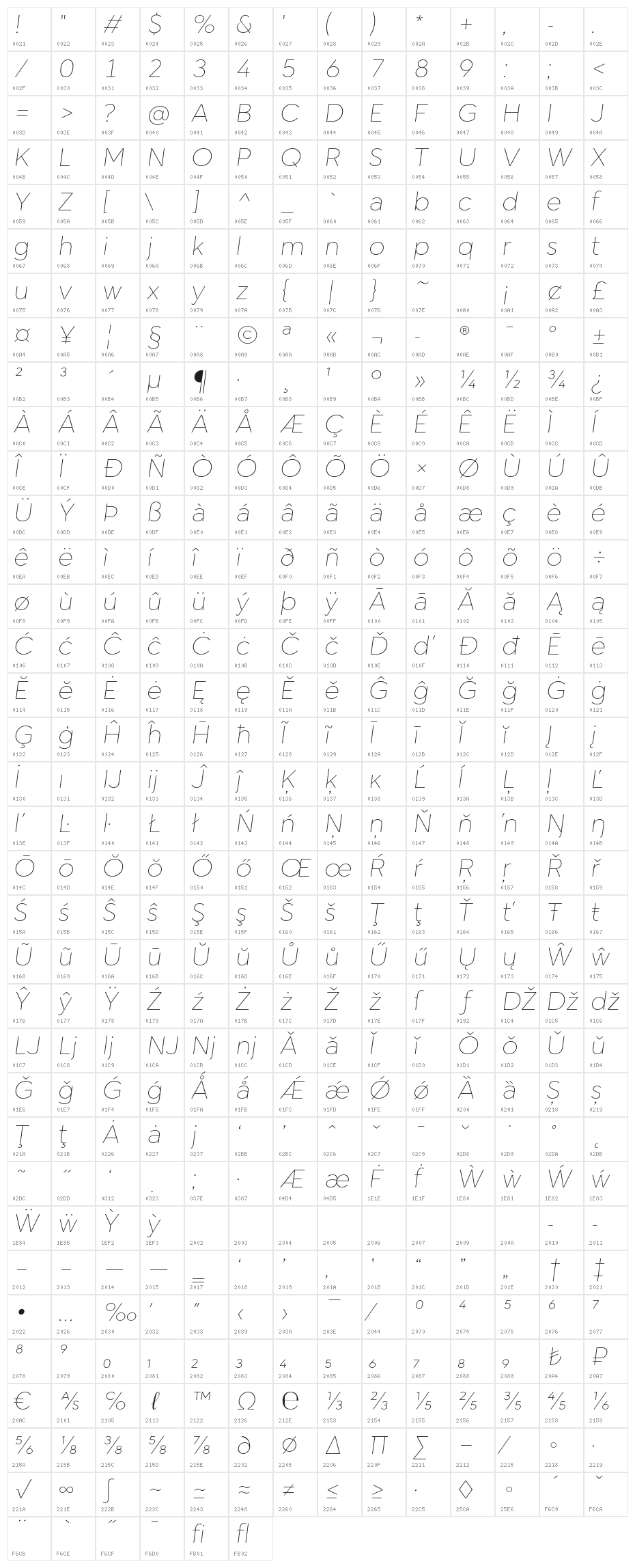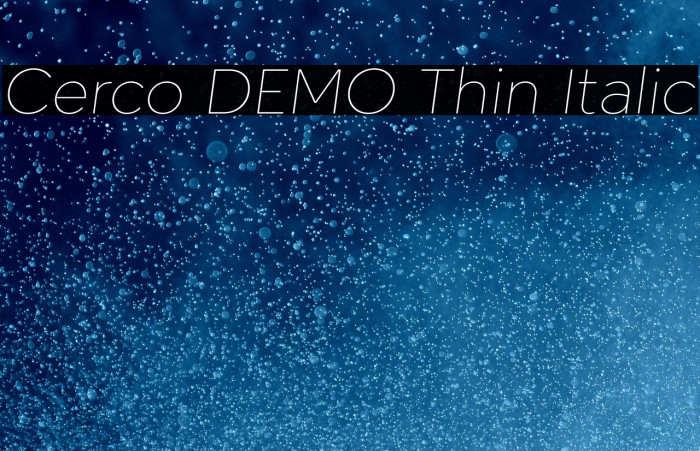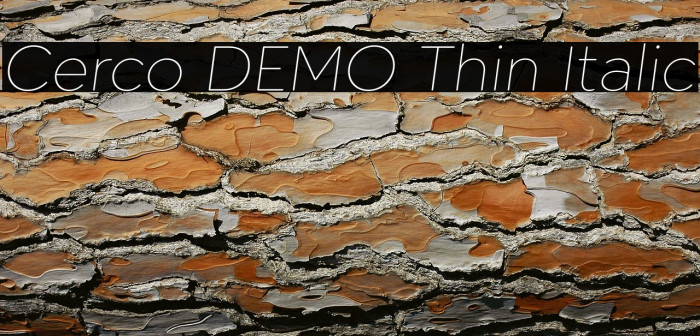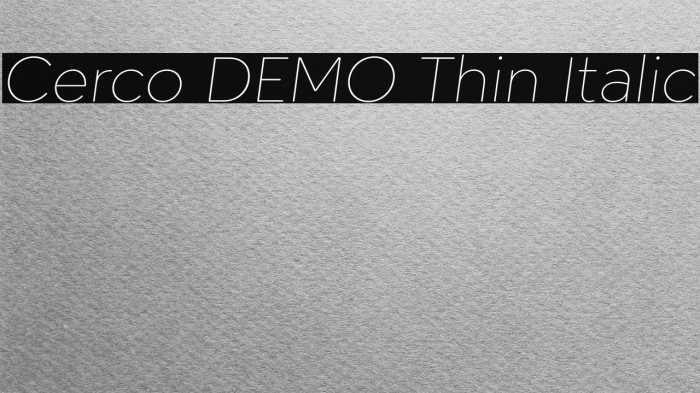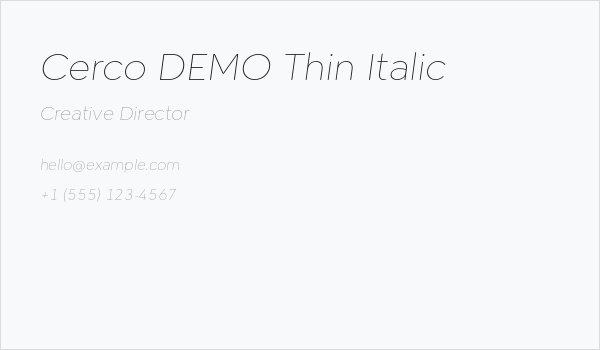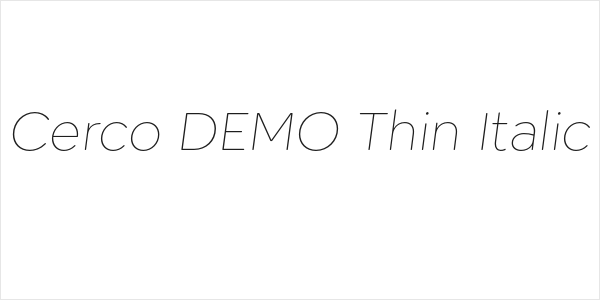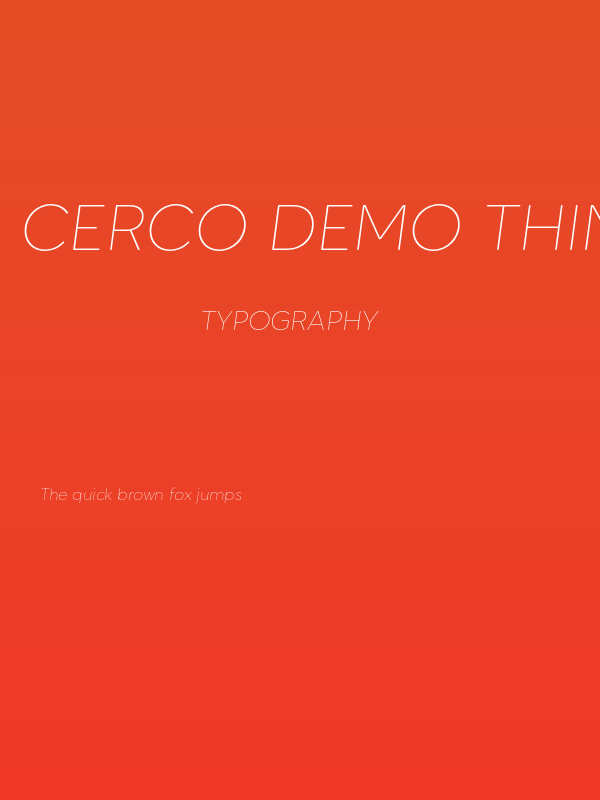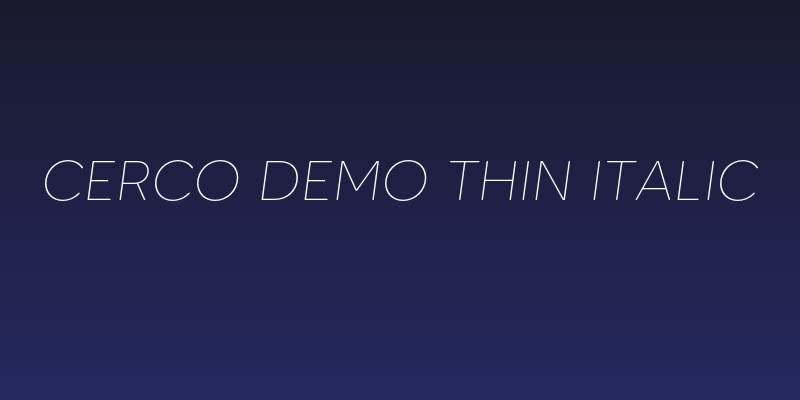
Cerco DEMO Thin Italic Font
Cerco DEMO Thin Italic Description
This font features a sleek and modern design with thin, elegant lines that convey a sense of sophistication and minimalism. The characters are slightly italicized, adding a dynamic and fluid appearance. The uppercase and lowercase letters maintain a consistent style, with smooth curves and clean edges. The numerals are clear and legible, complementing the overall aesthetic. Special characters are included, maintaining the same thin and refined structure. This font is ideal for projects that require a contemporary and stylish look.
Proposed ProjectsIdeal for fashion magazines, luxury branding, minimalist websites, and modern advertising campaigns.